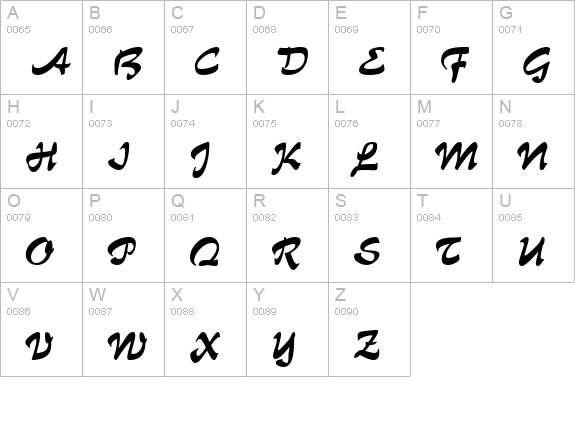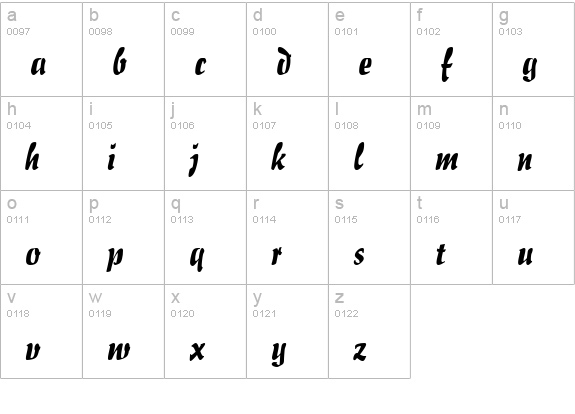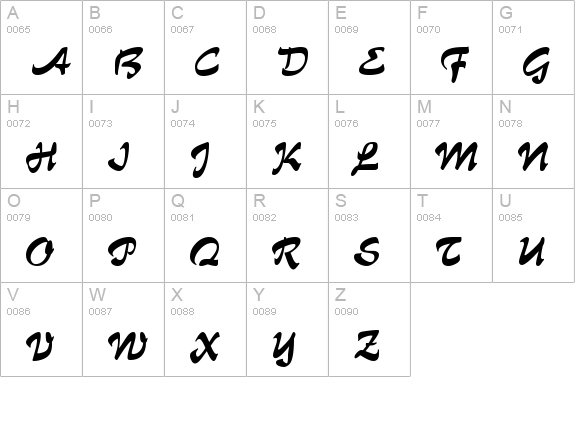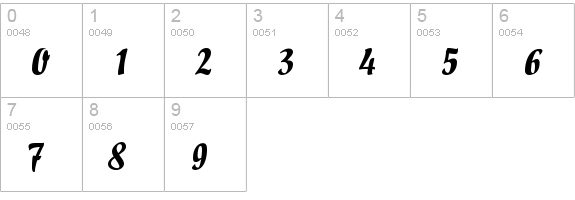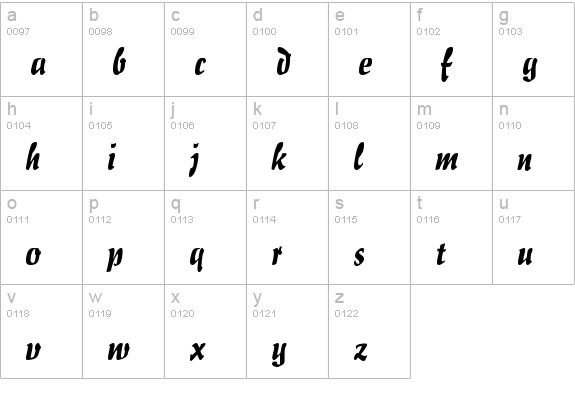
Brush Flair Regular is the standard, neutral variant in the Brush typeface family \xE2\x80\x94 well suited to general body text, paragraphs, and standard typographic work.
Brush Flair Regular font is a stylish and modern typeface that exudes creativity and elegance. Its brush strokes give it a unique flair, making it perfect for projects that require a touch of sophistication. This font is versatile and can be used for various design purposes, from branding to social media graphics. What sets Brush Flair Regular font apart is not only its aesthetic appeal but also its accessibility. It is a free font that can be easily downloaded at FontsMarket.com, making it a valuable resource for designers and creatives looking to elevate their projects without breaking the bank. With its smooth curves and dynamic energy, Brush Flair Regular font is sure to make a statement and leave a lasting impression on any design it graces.